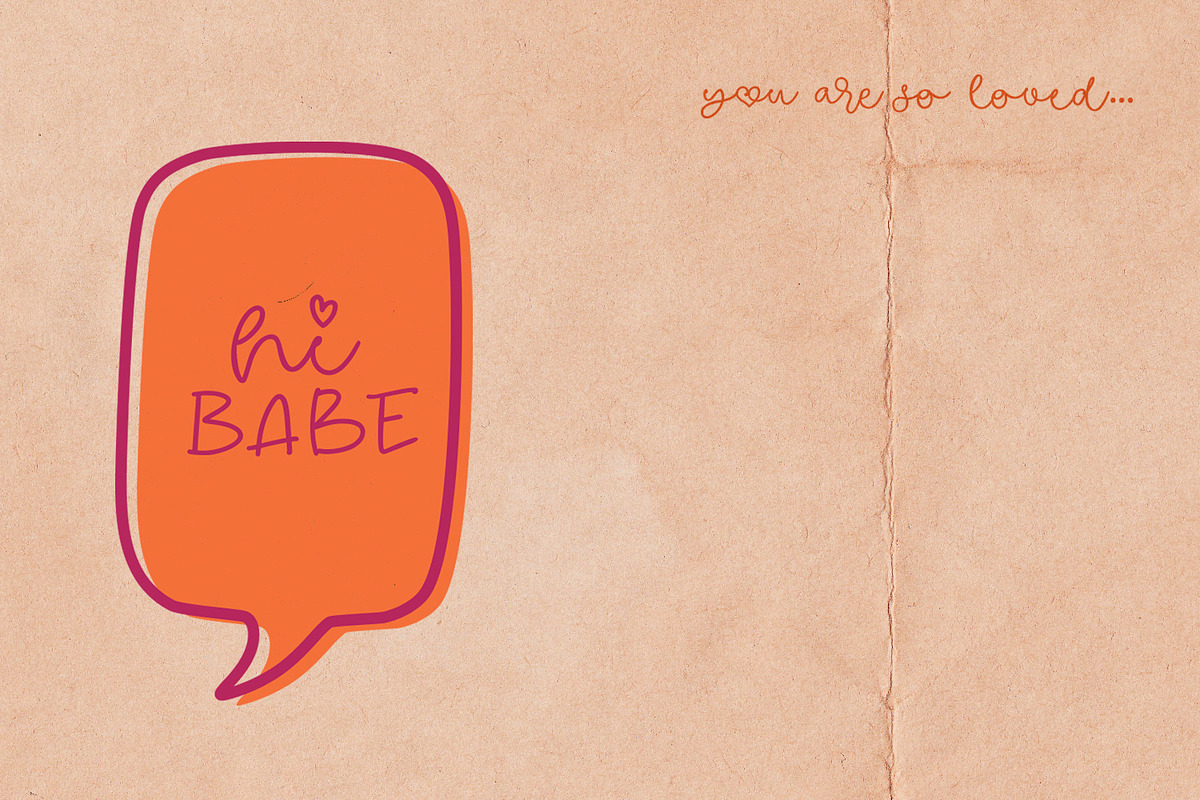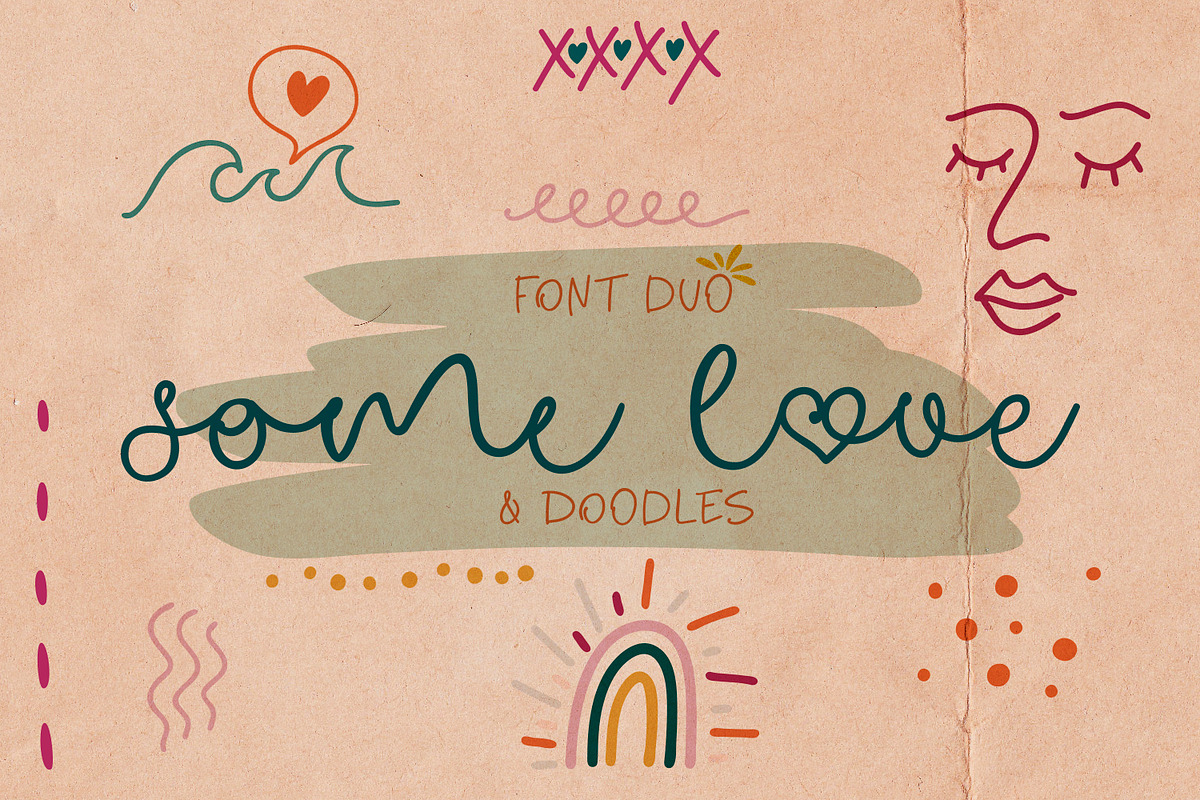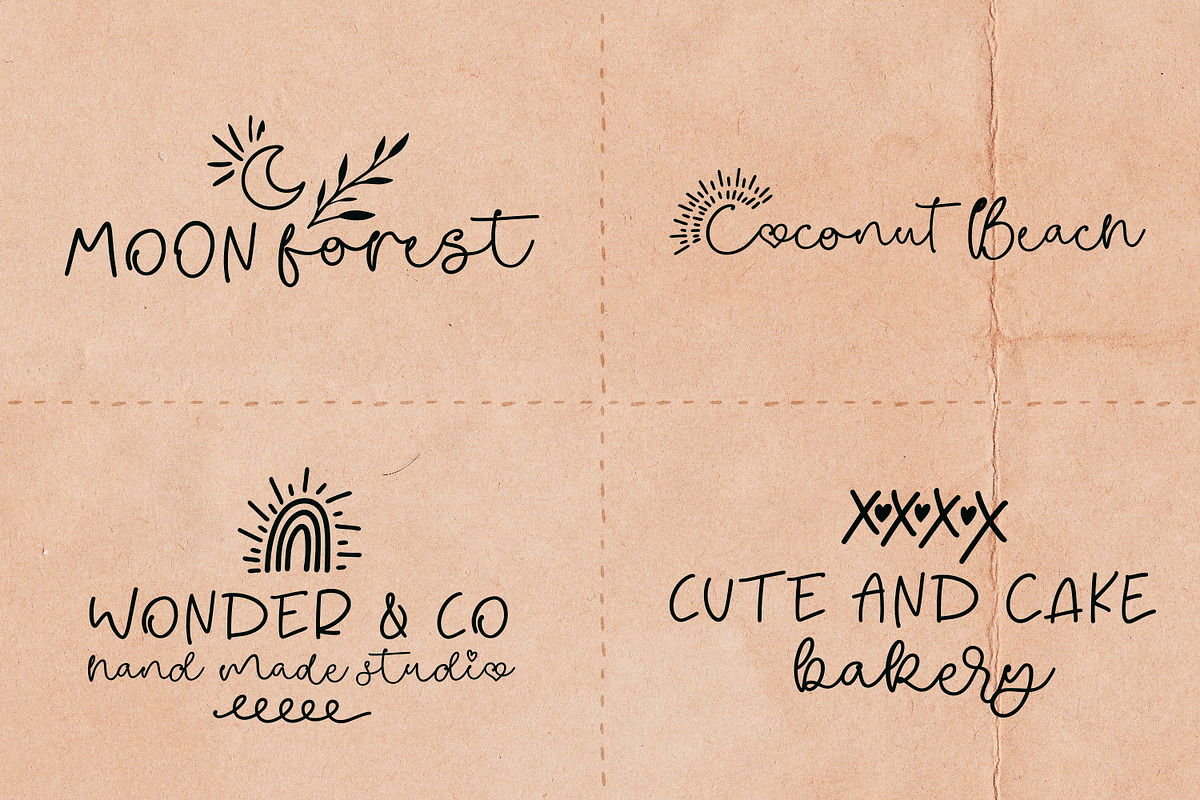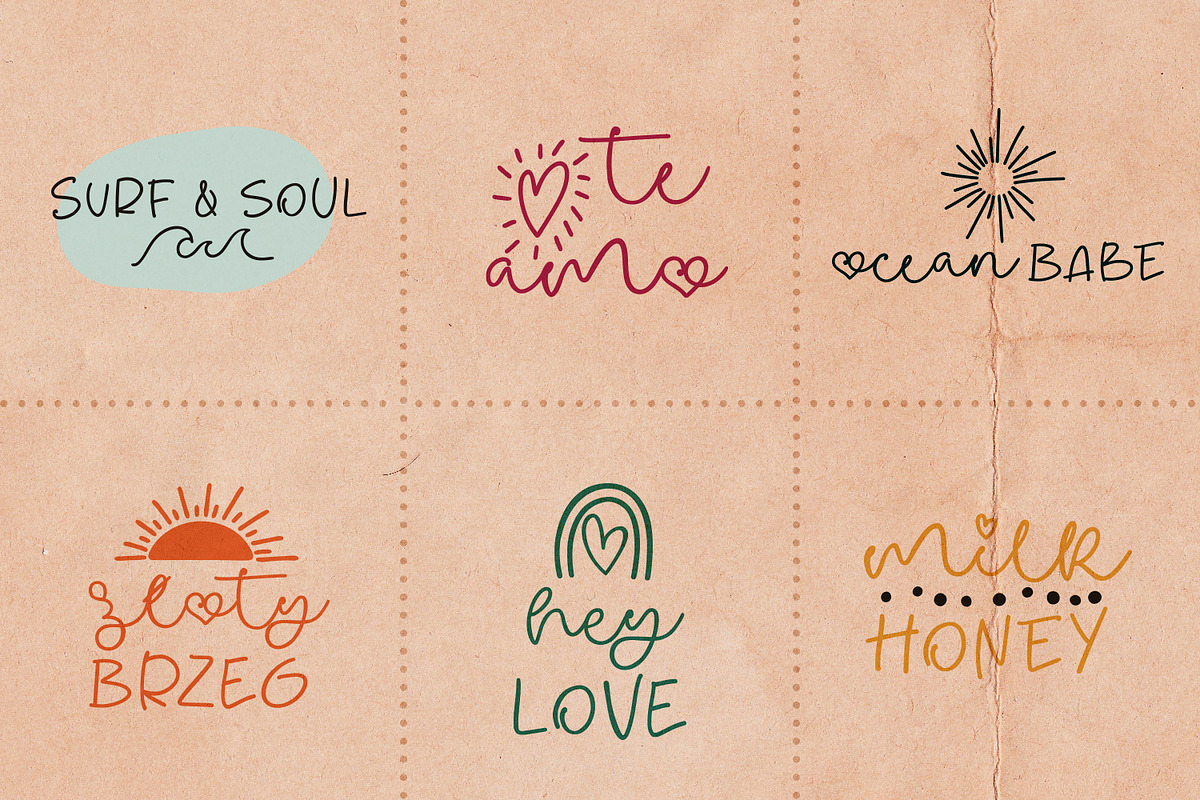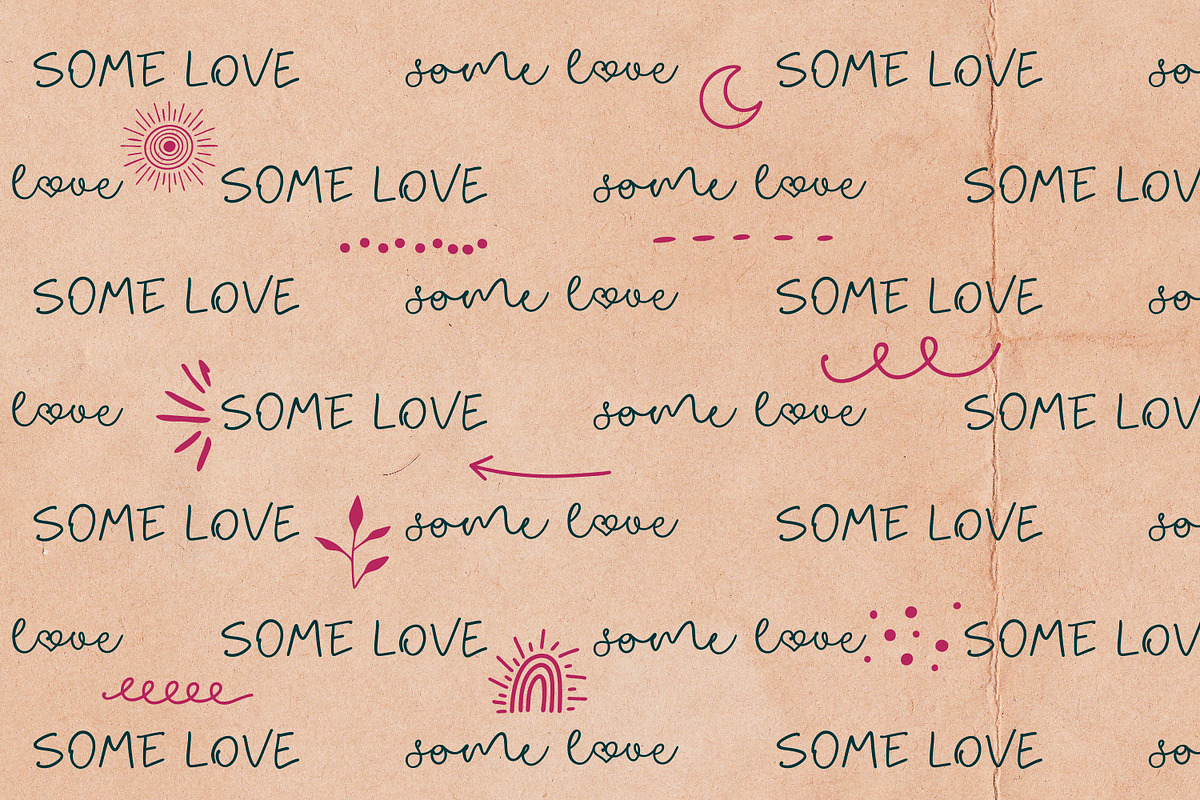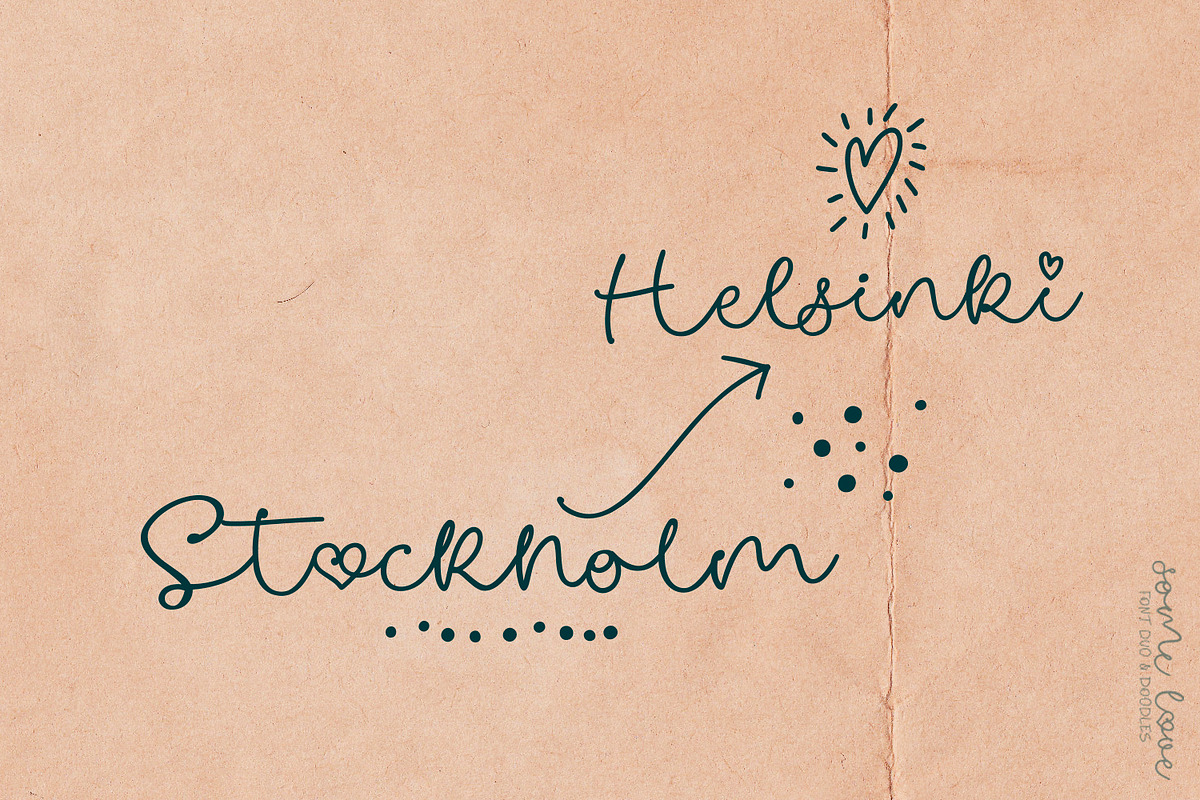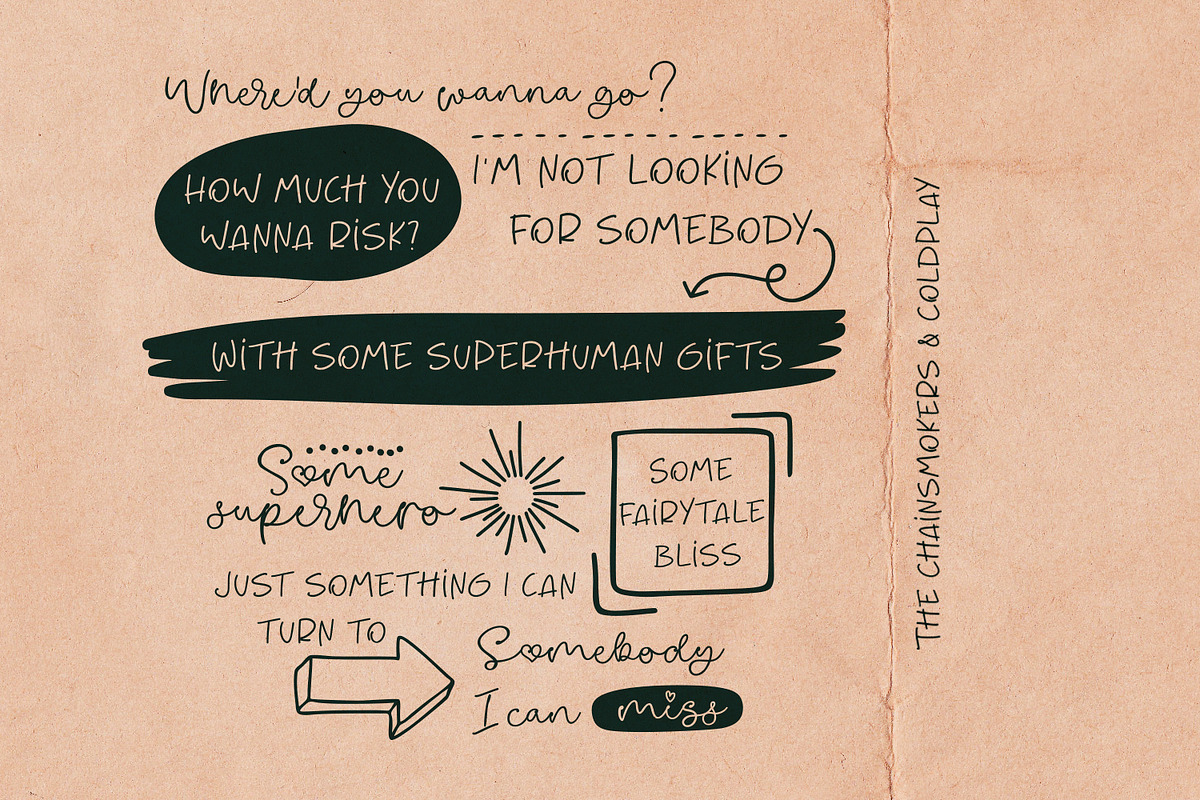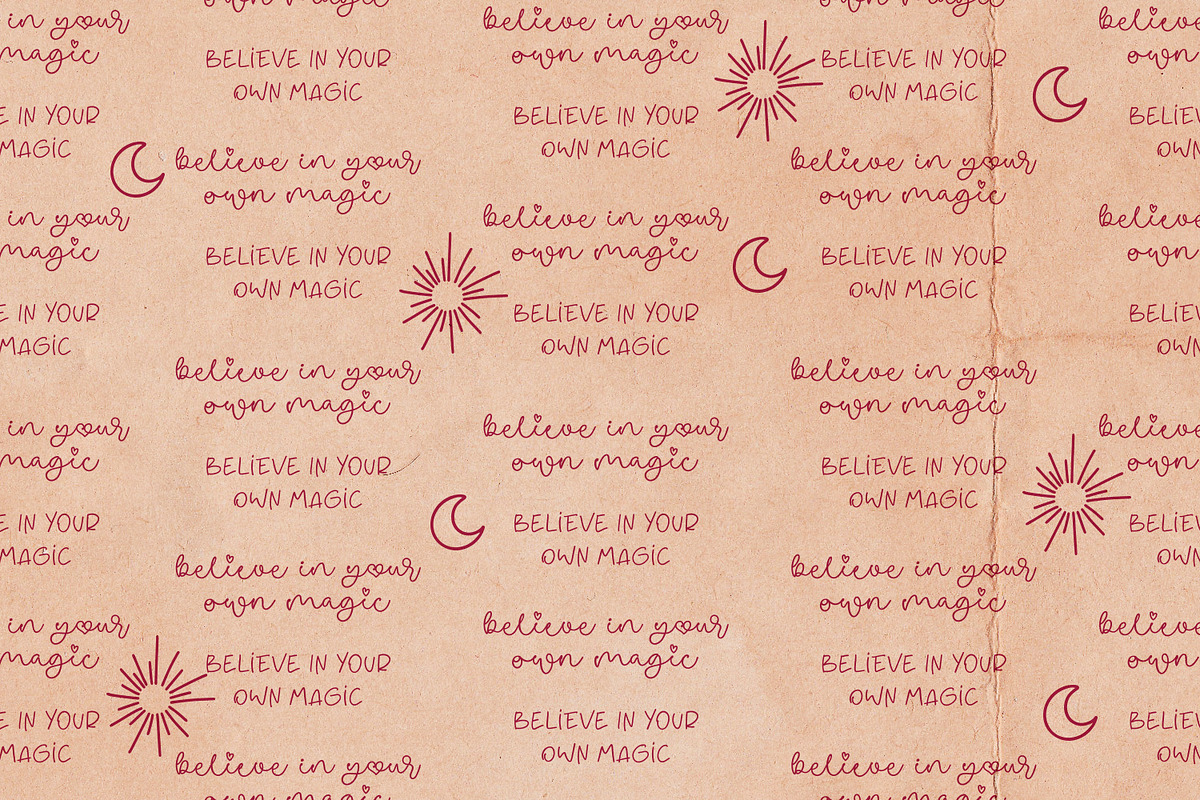
Some Love Font Duo & Doodles
Some Love Font Duo & Doodles - it's a trendy font duo with cute doodles. Perfect for logos, social media, projects like cards, mugs and tshirt design.
- Some Love Regular
- Some Love Script
Some Love Font Duo & Doodles by CallMeStasia fits naturally into Branding, posters, packaging, typography.